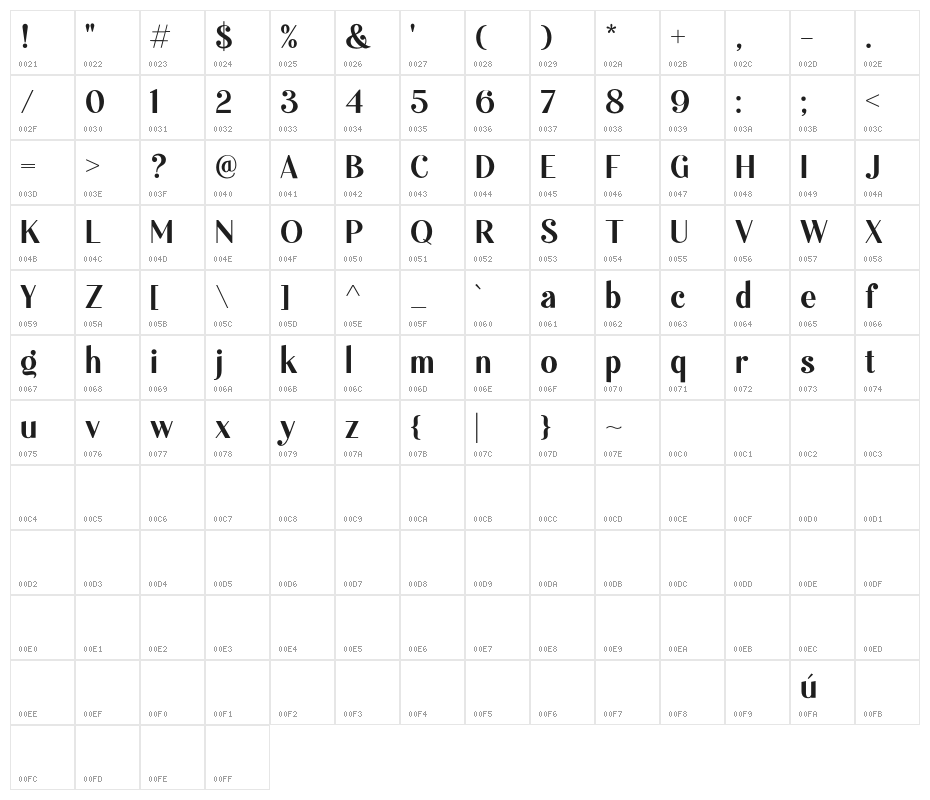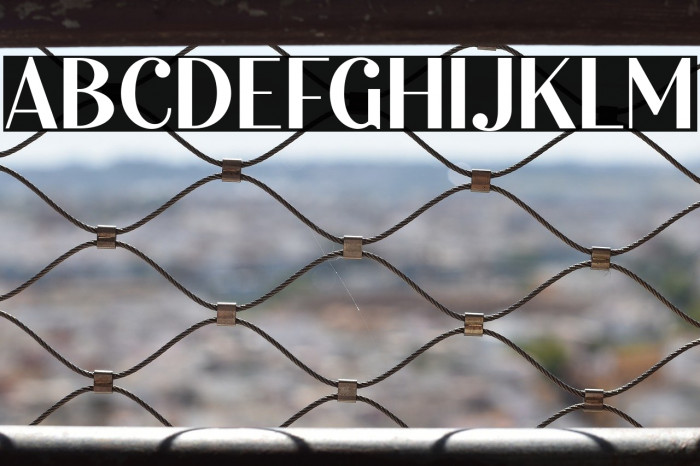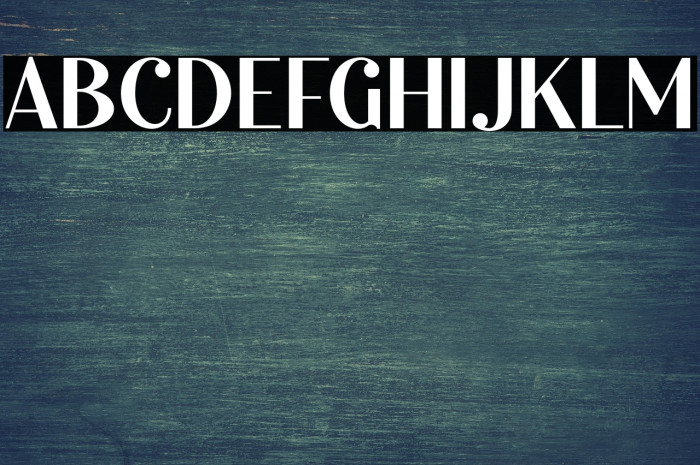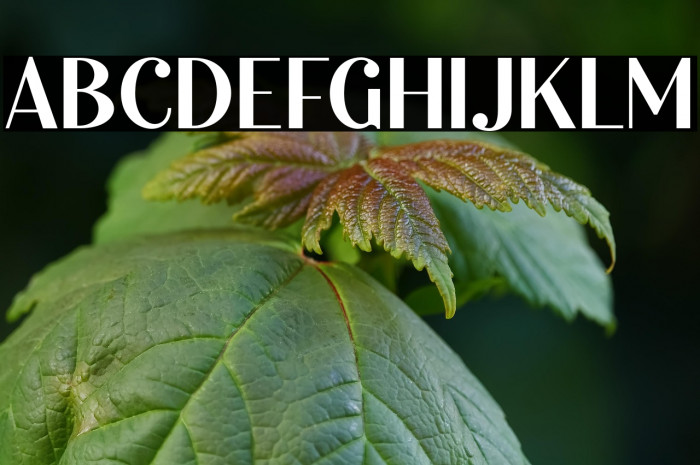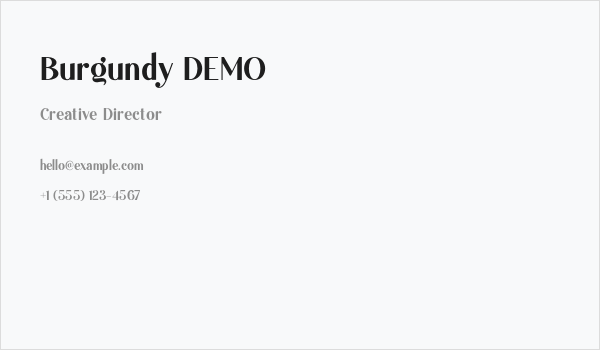
Burgundy DEMO Font
Burgundy DEMO Description
This font features a bold and elegant design with high contrast between thick and thin strokes, creating a sophisticated and modern appearance. The uppercase letters are tall and commanding, while the lowercase letters maintain a consistent style with a touch of flair in certain characters like 'g' and 'y'. The numerals are distinct and easily readable, complementing the overall aesthetic. Special characters are well-integrated, adding versatility to the font's use. Its design is both functional and stylish, making it suitable for a variety of applications.